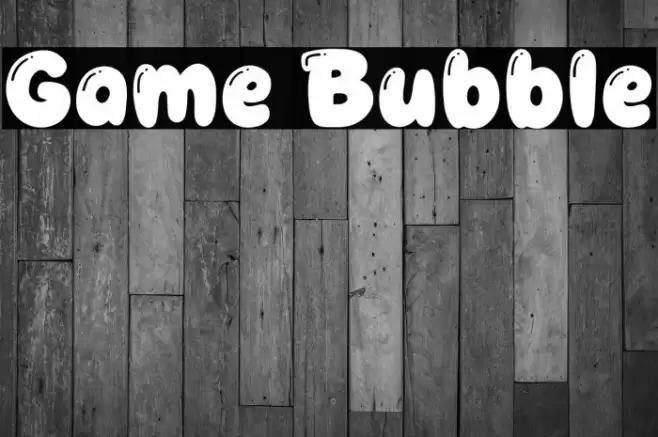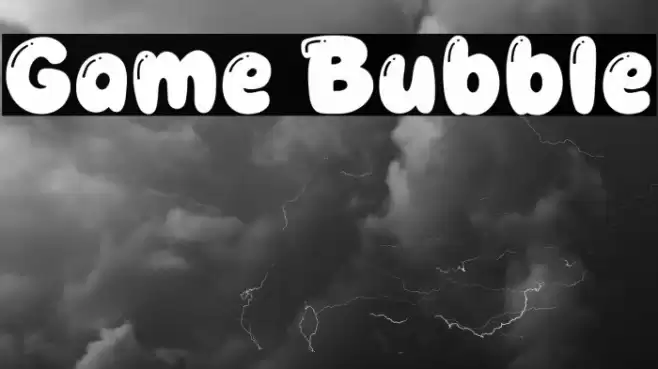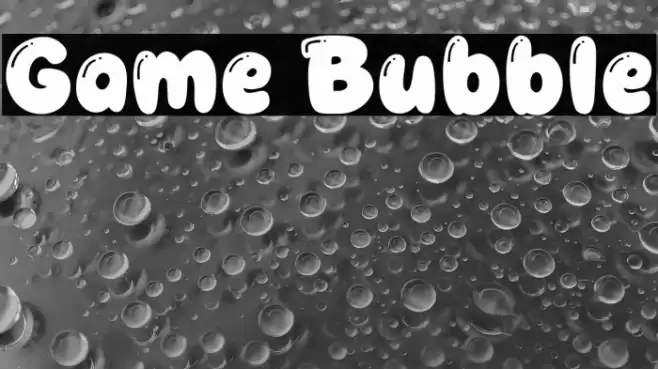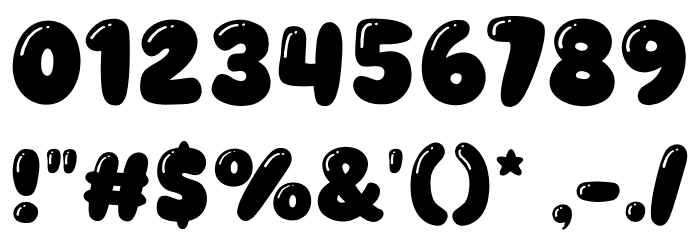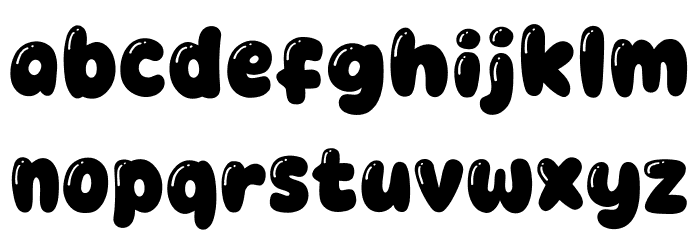
Game Bubble Font
Game Bubble Description
This playful and bold font features rounded, bubble-like characters that exude a sense of fun and whimsy. The letters are thick and have a smooth, glossy appearance, reminiscent of inflated balloons or bubbles. Each character is well-defined with a consistent stroke width, creating a uniform and cohesive look. The font includes both uppercase and lowercase letters, numbers, and a variety of special characters, making it versatile for different design needs. Its unique style is eye-catching and ideal for projects that require a touch of creativity and lightheartedness.
A playful, bold font with rounded, bubble-like characters perfect for fun designs from Uncategorized fonts.
- Proposed Projects: Ideal for children's books, party invitations, playful branding, and game design.
- Overall Style: Playful